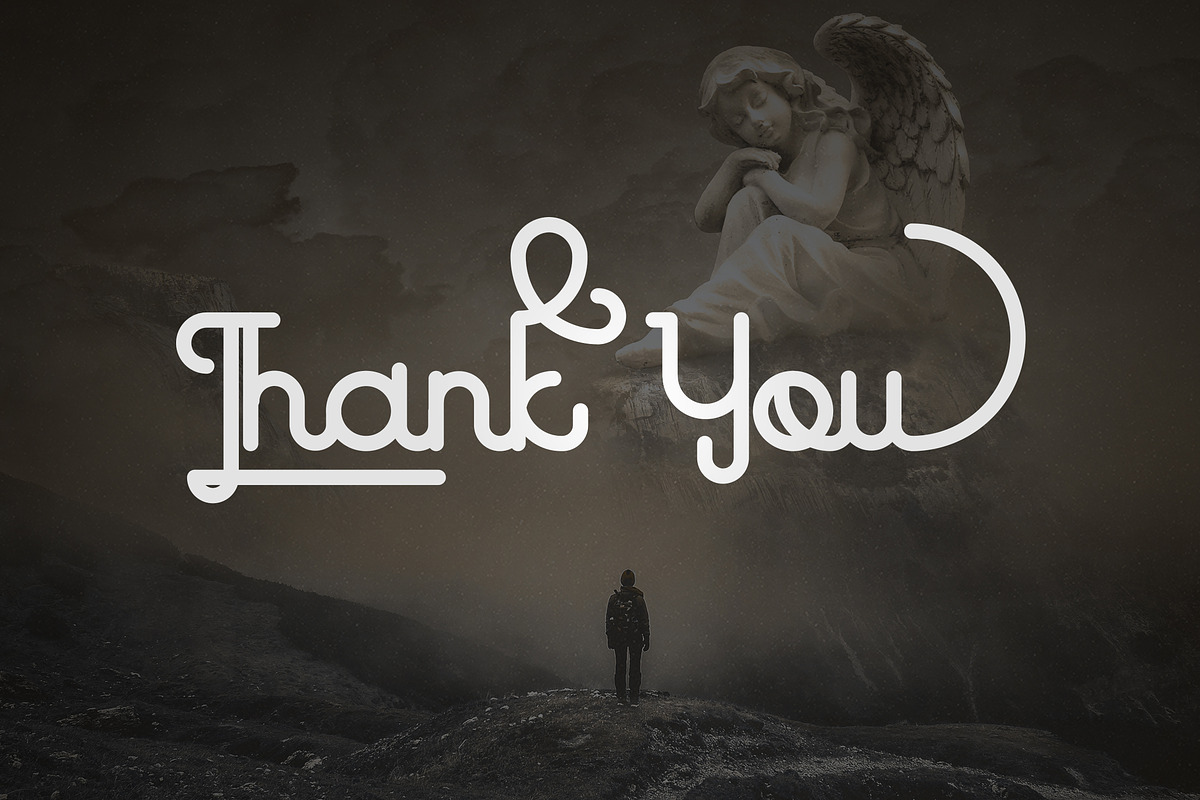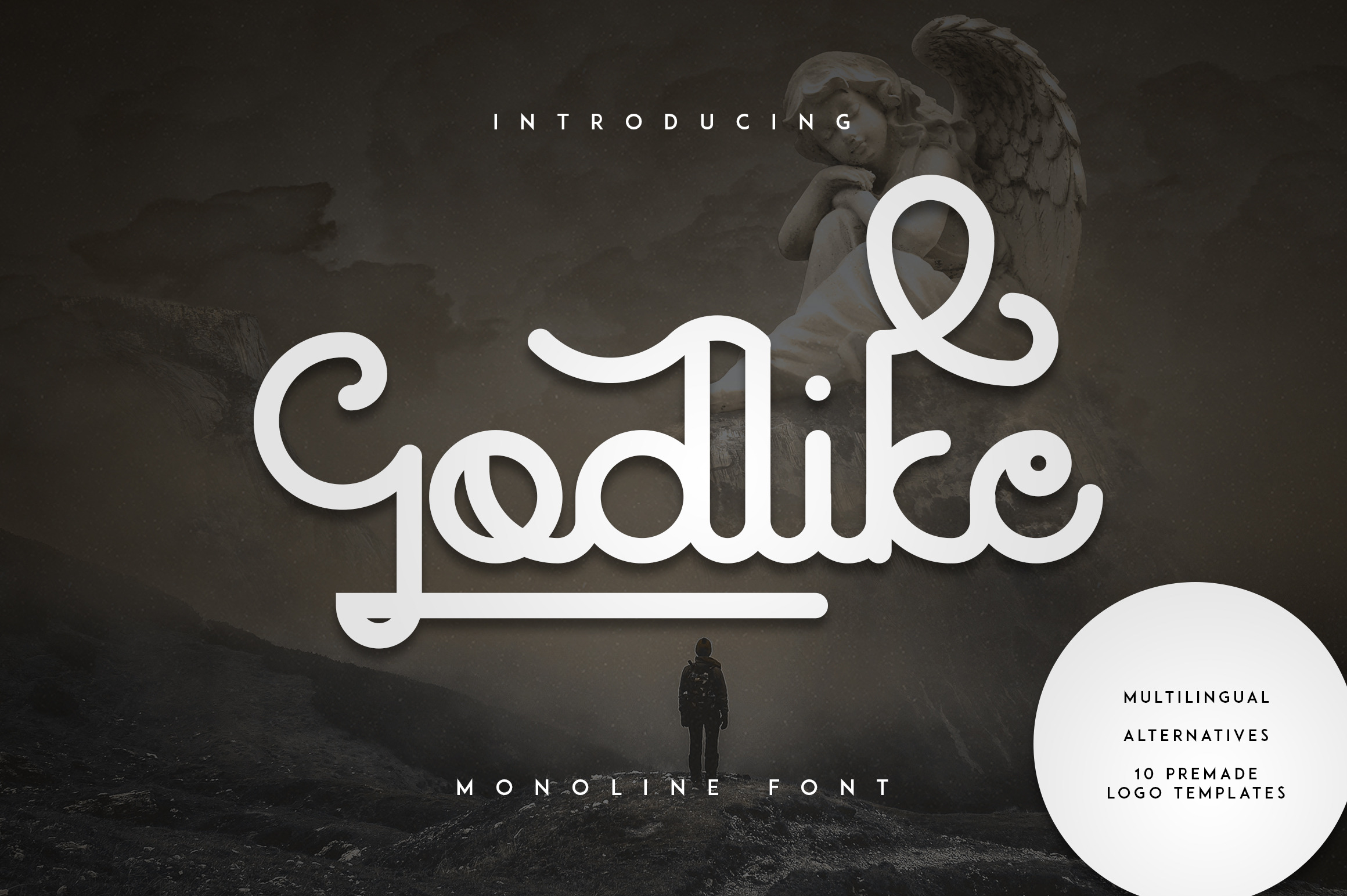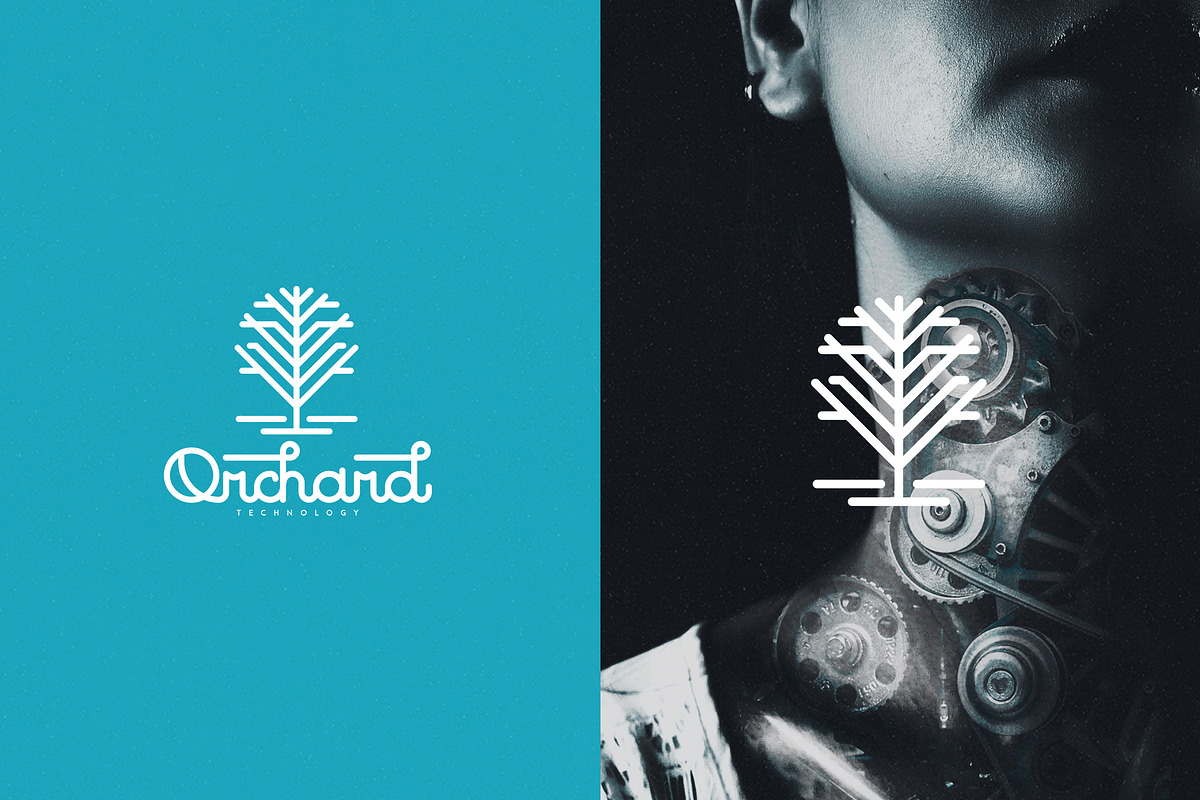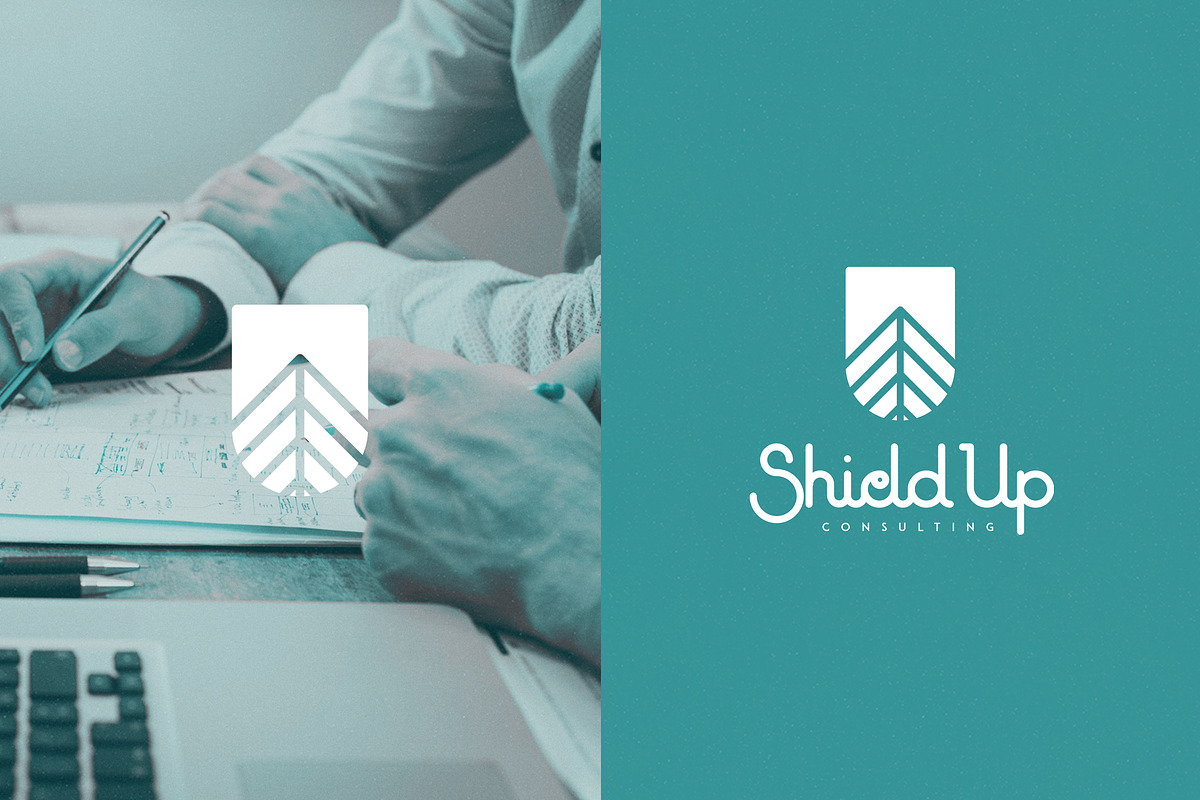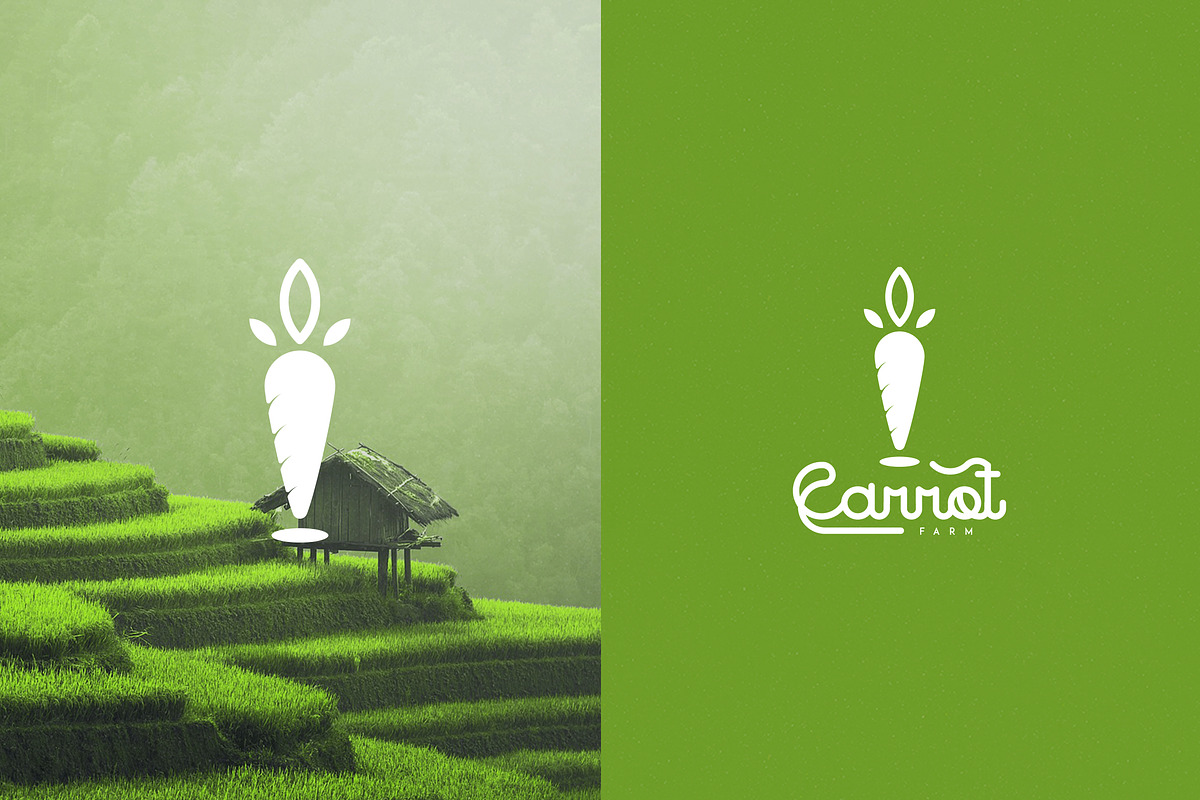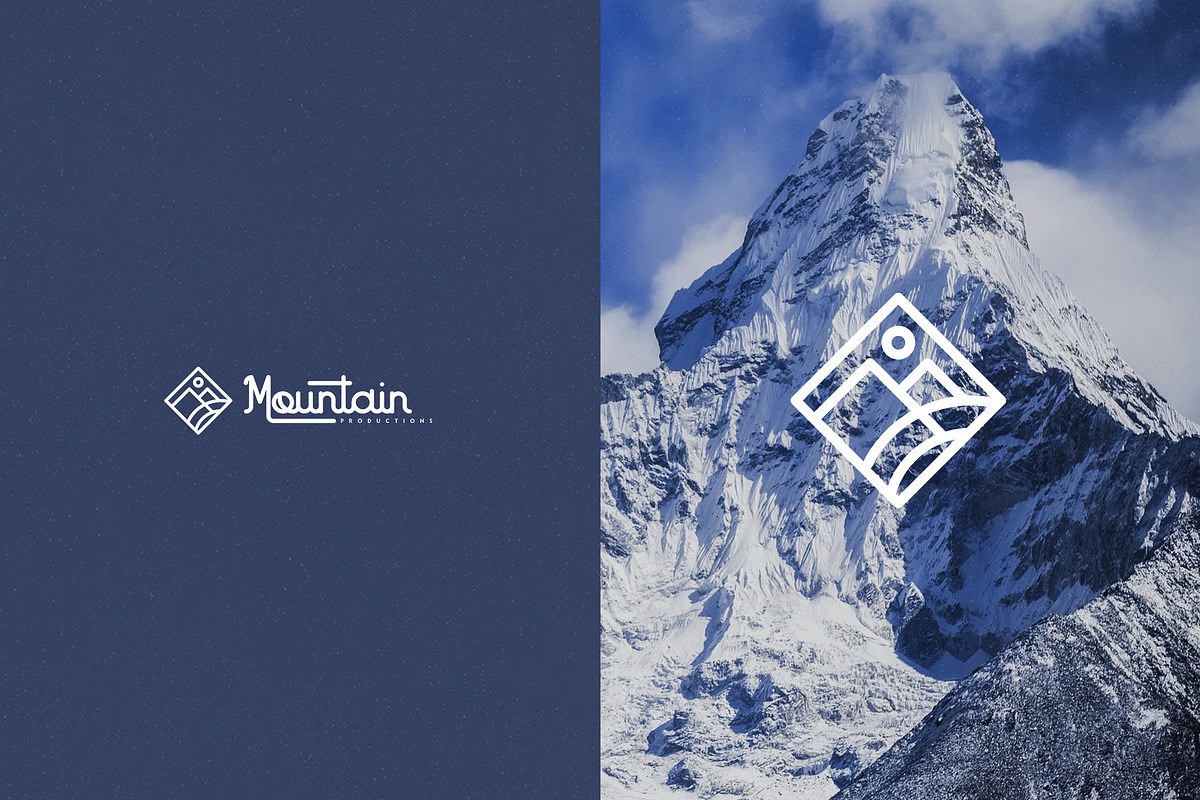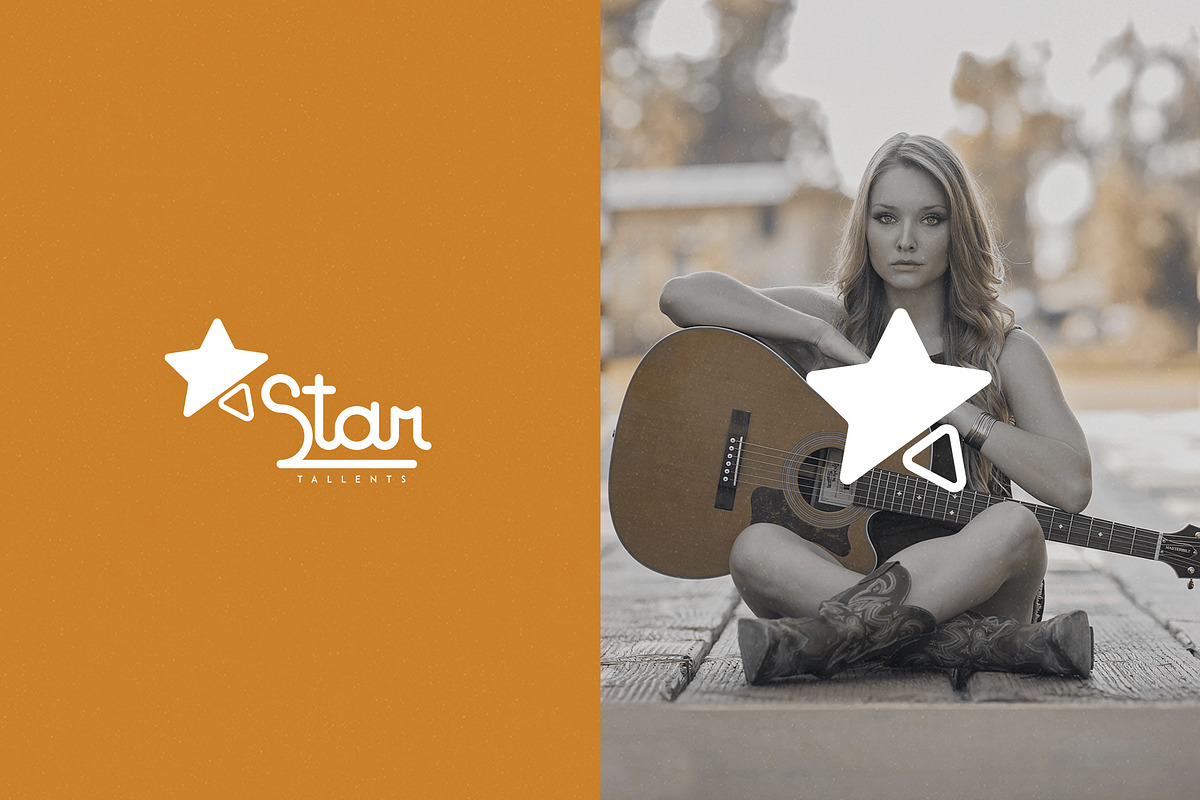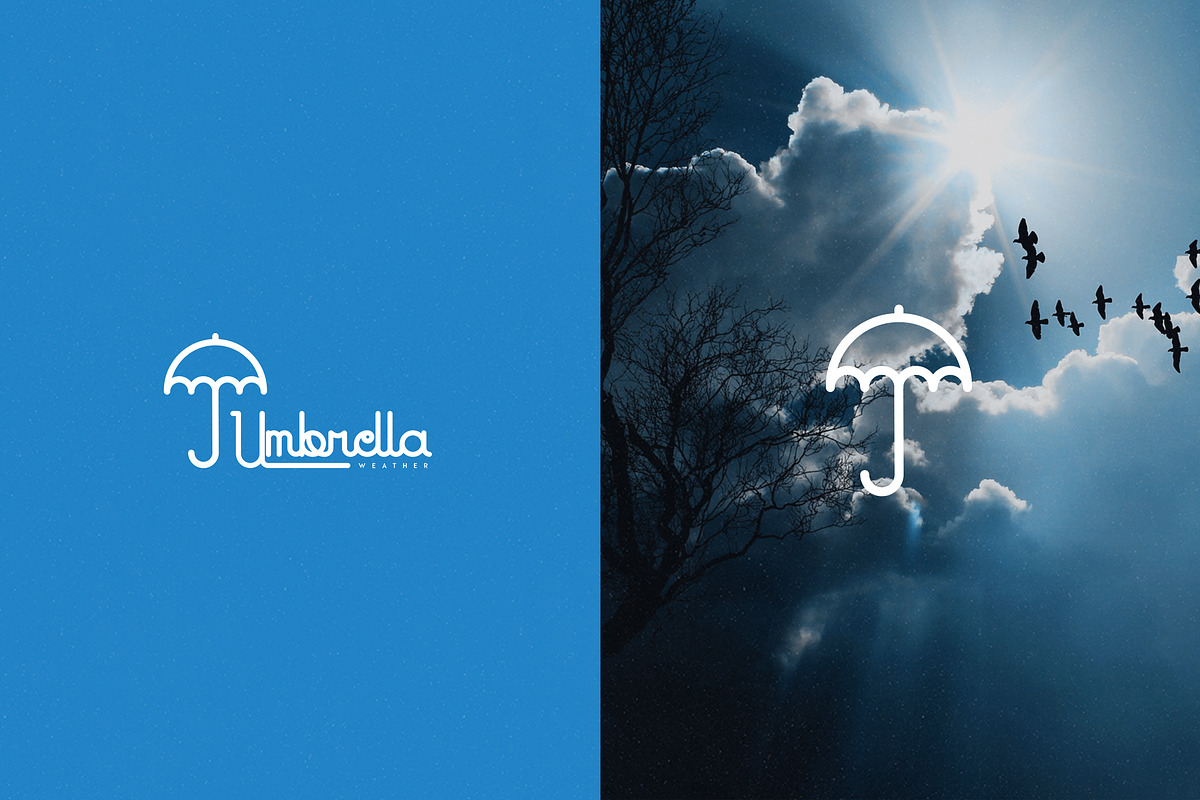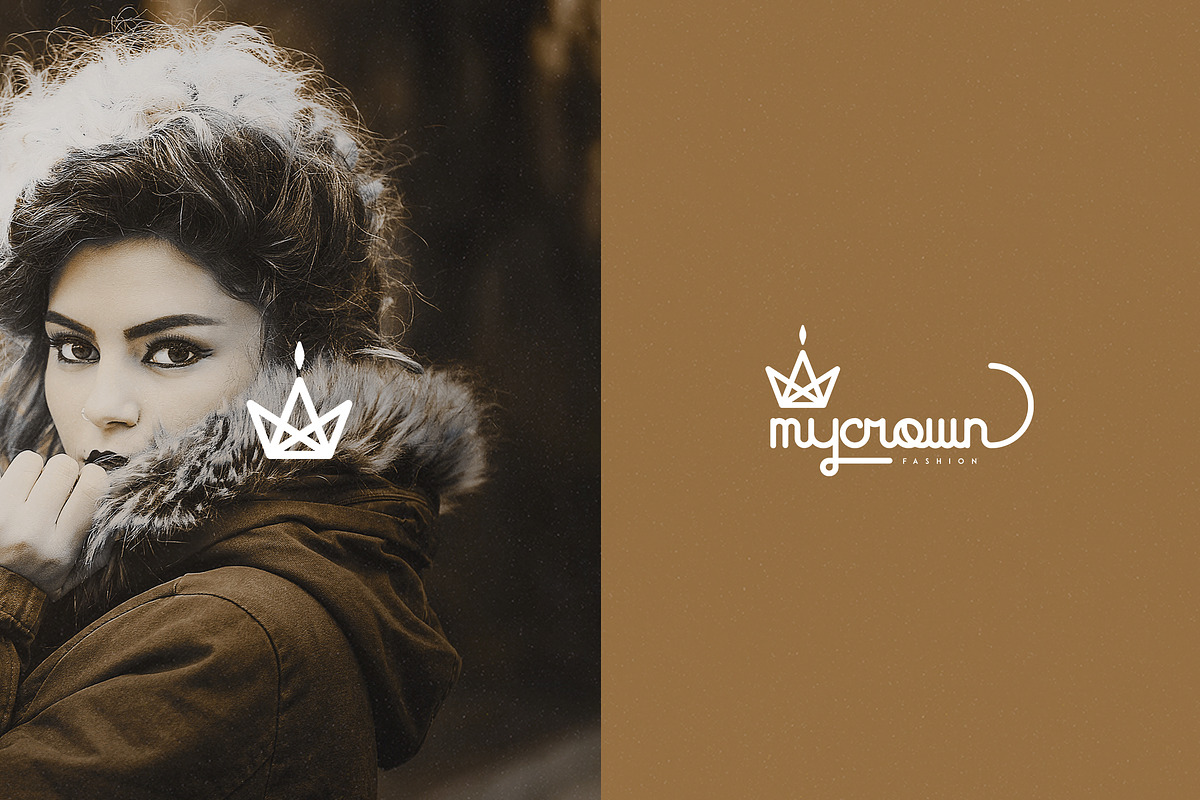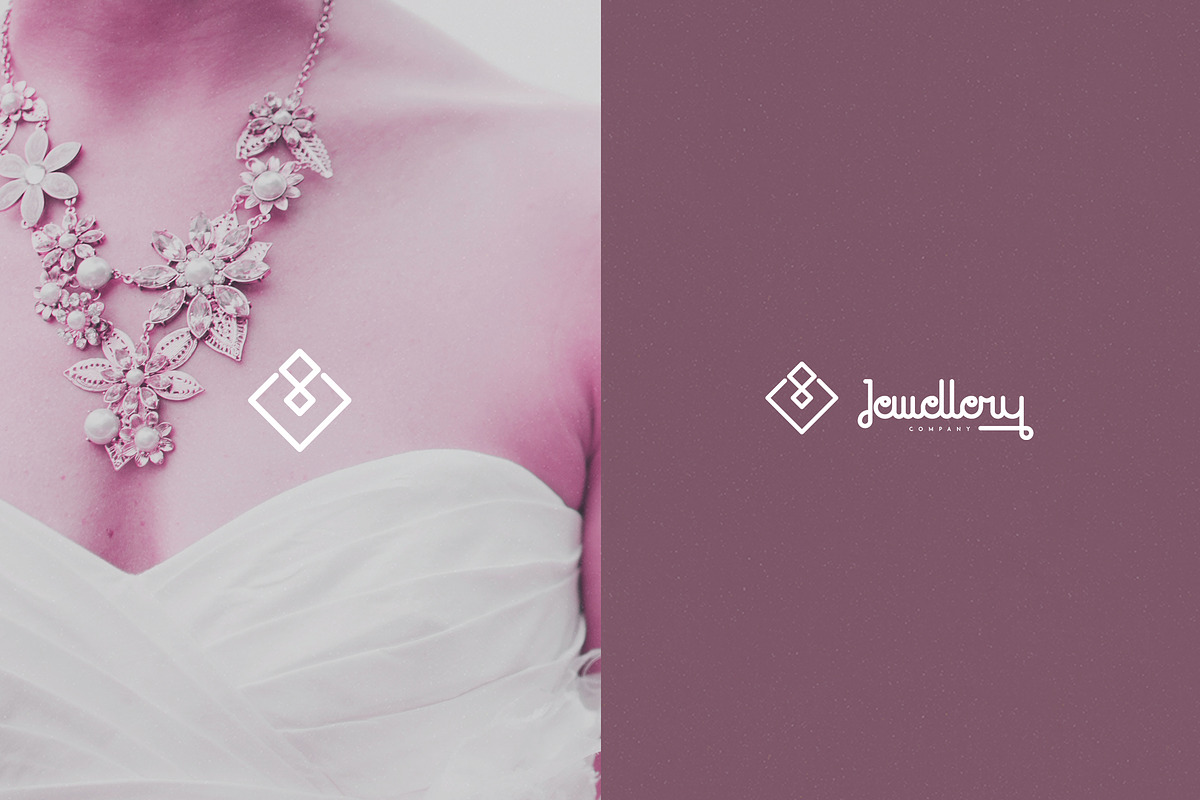
Godlike font + Logo Templates -30%
Godlike font and Logo Template
Godlike is a monoline display font with round corners. It's a very versatile font that works great in large and small sizes. Godlike is perfect for branding projects, home-ware designs, product packaging - or simply as a stylish text overlay to any background image.
- Uppercase,lowercase,numeral,punctuation & Symbol
- Alternatives
- 10 premade logo templates